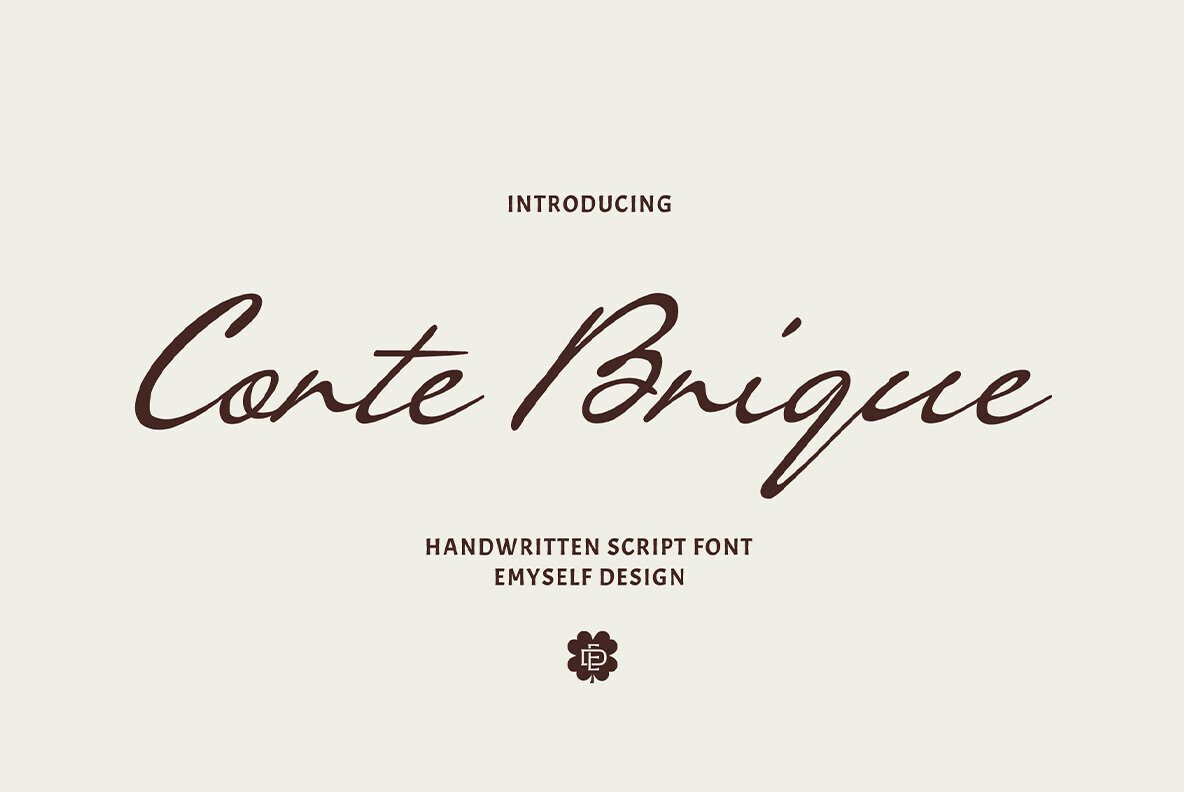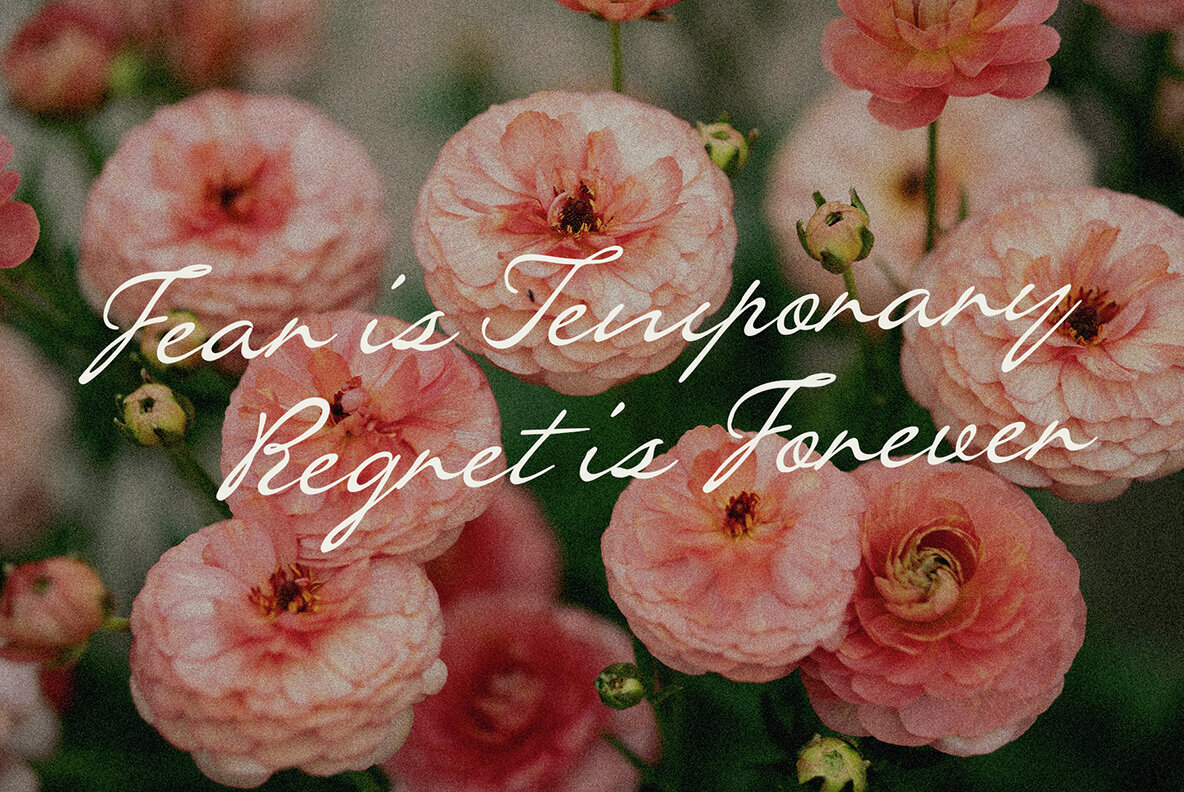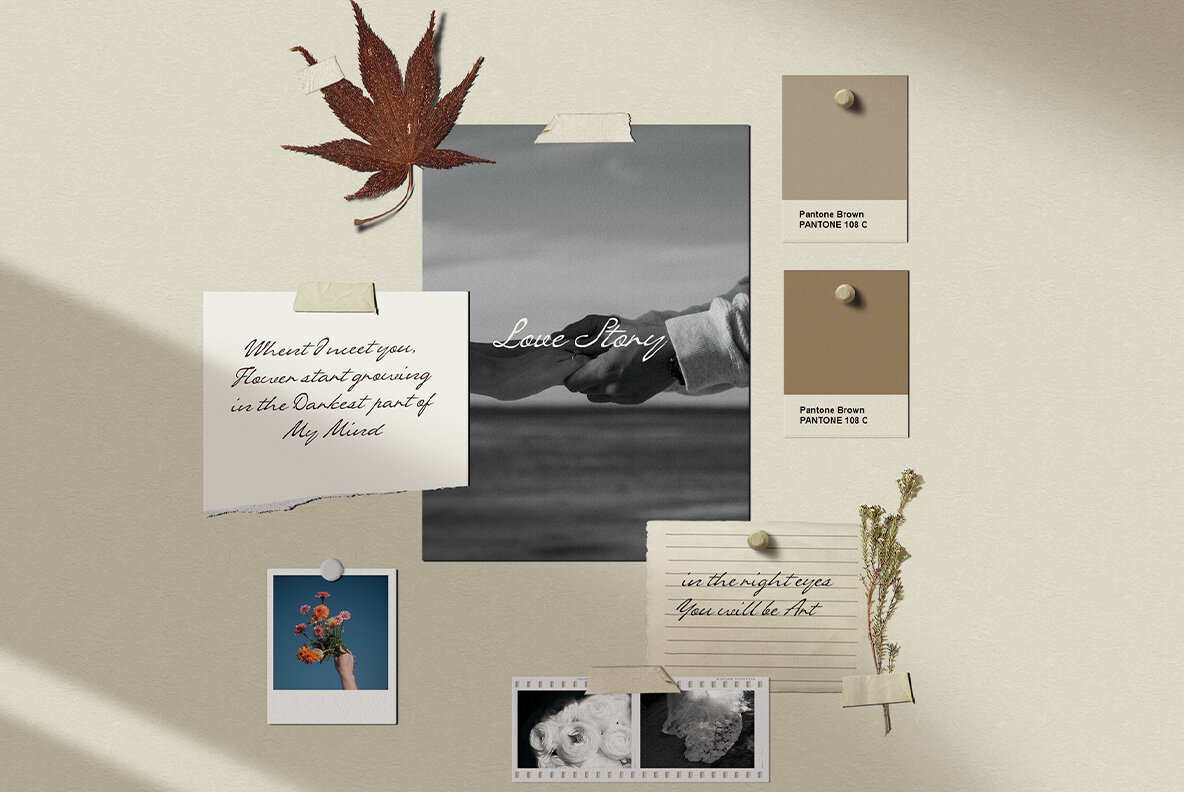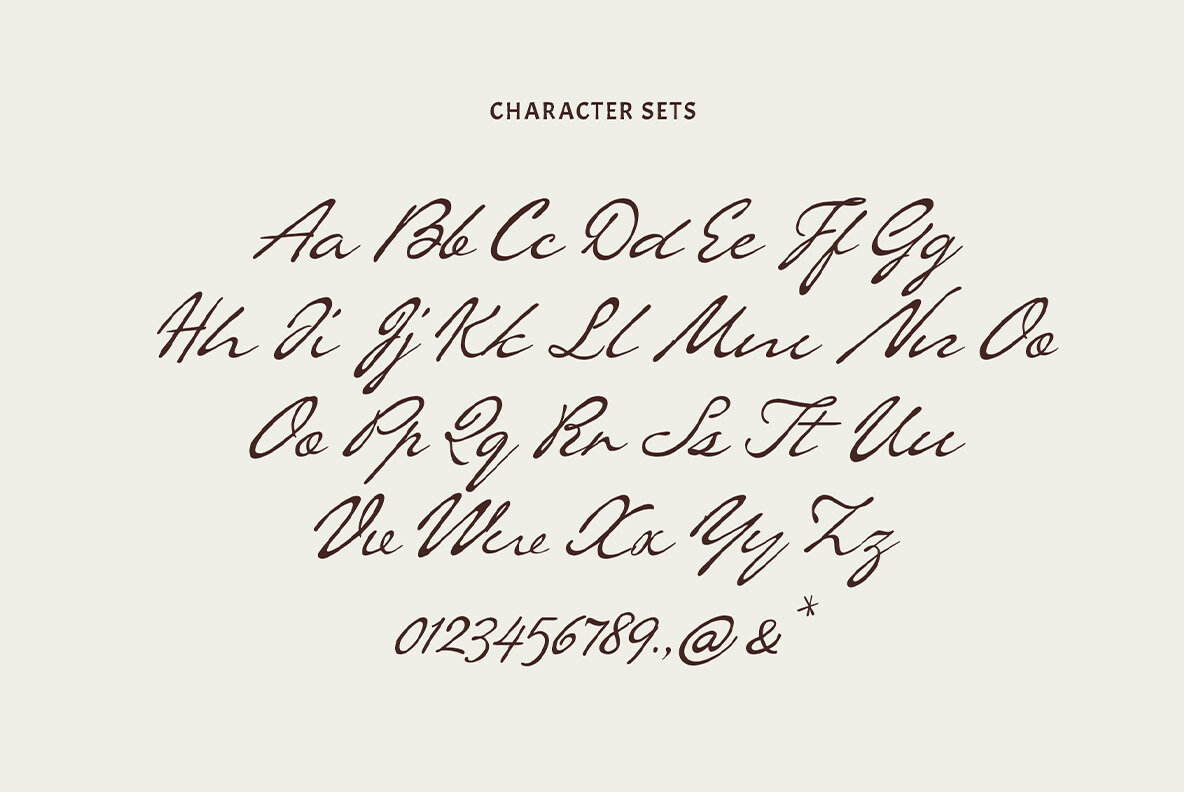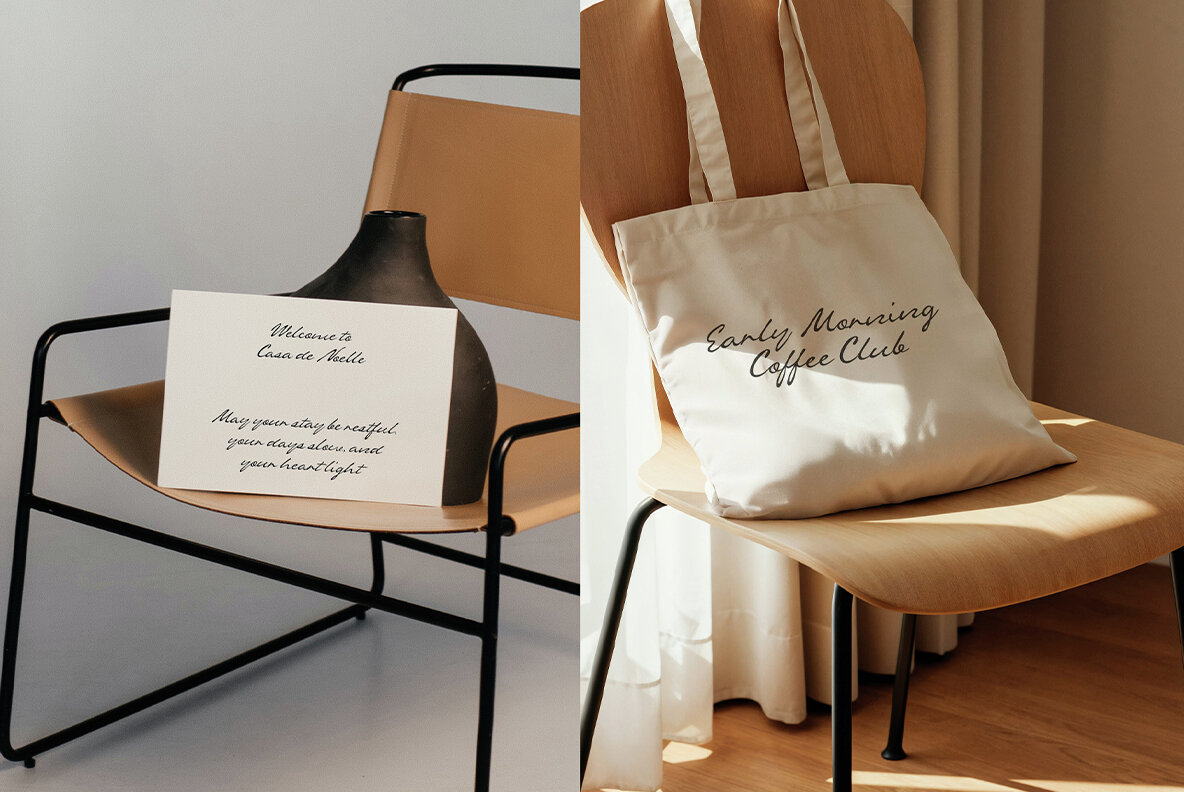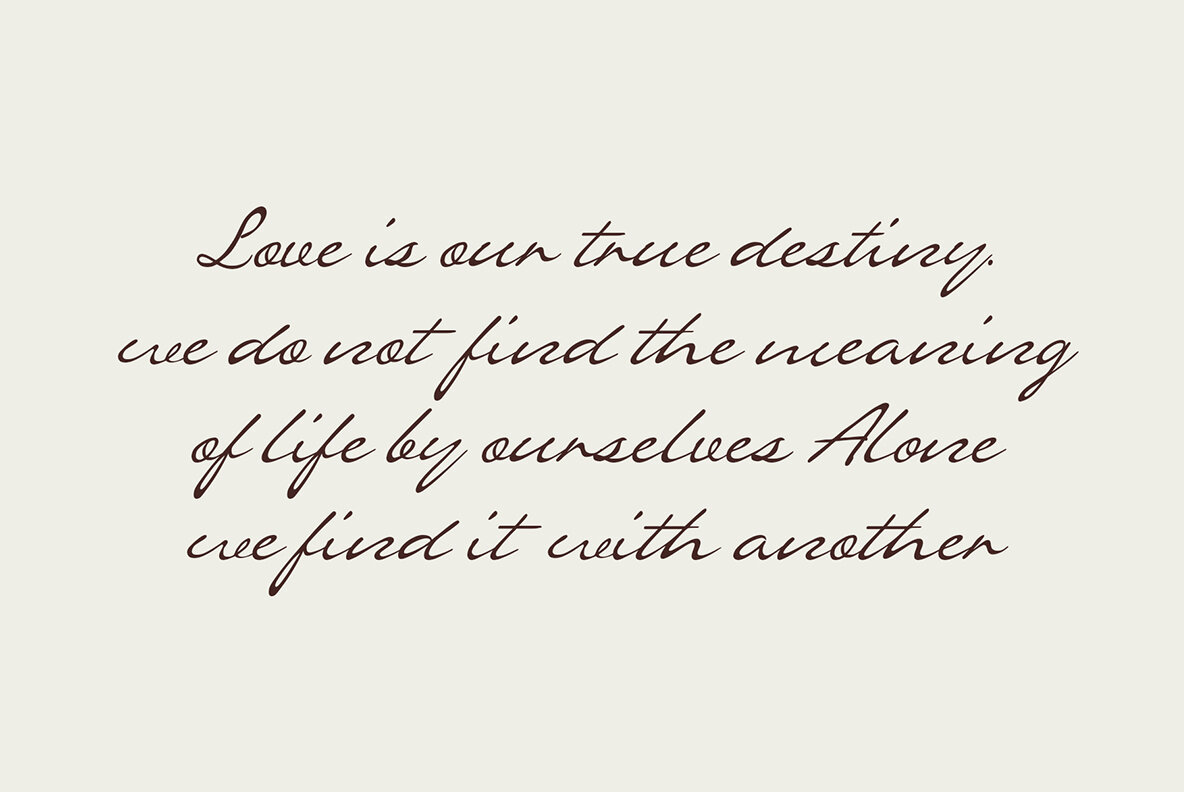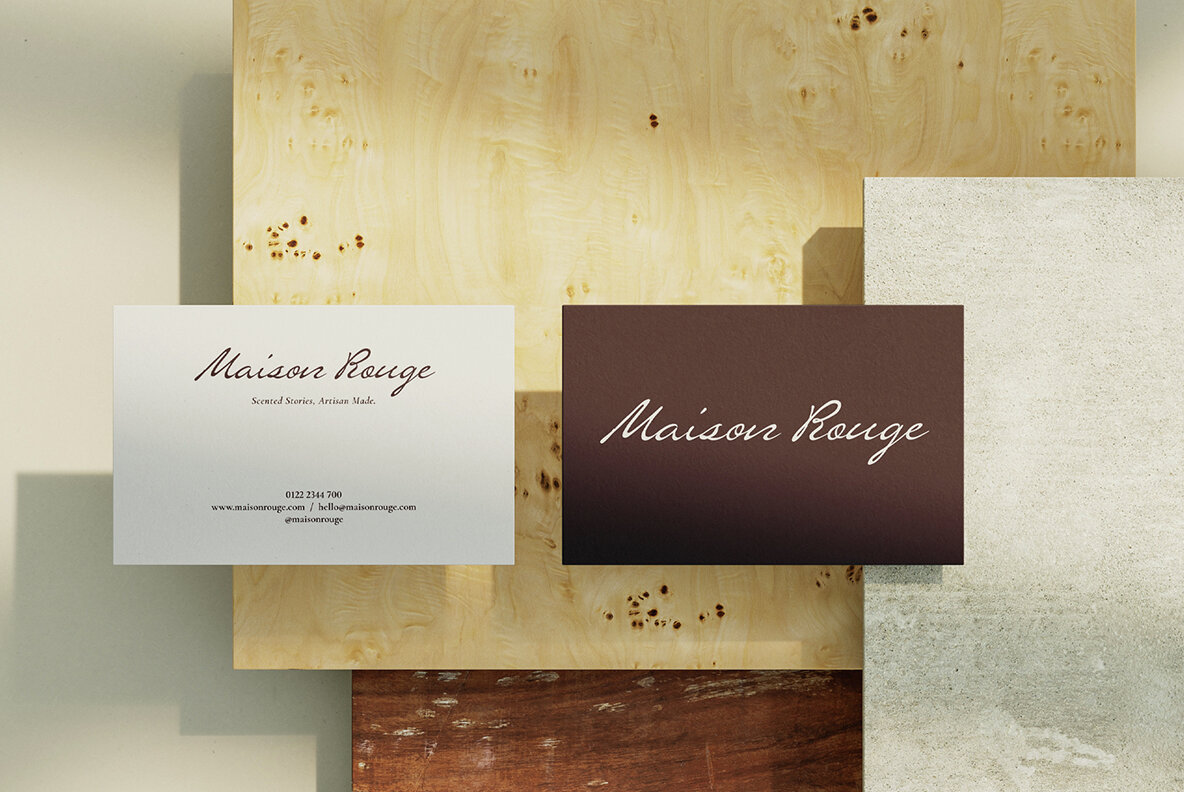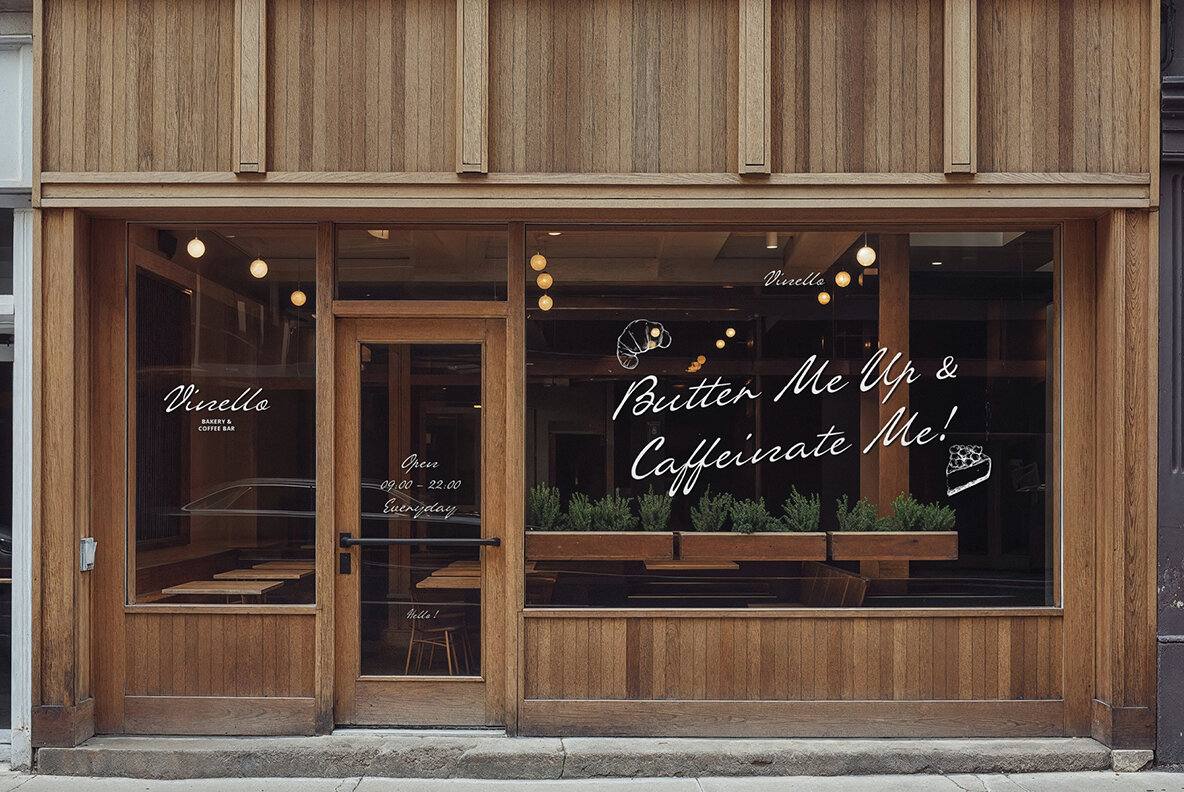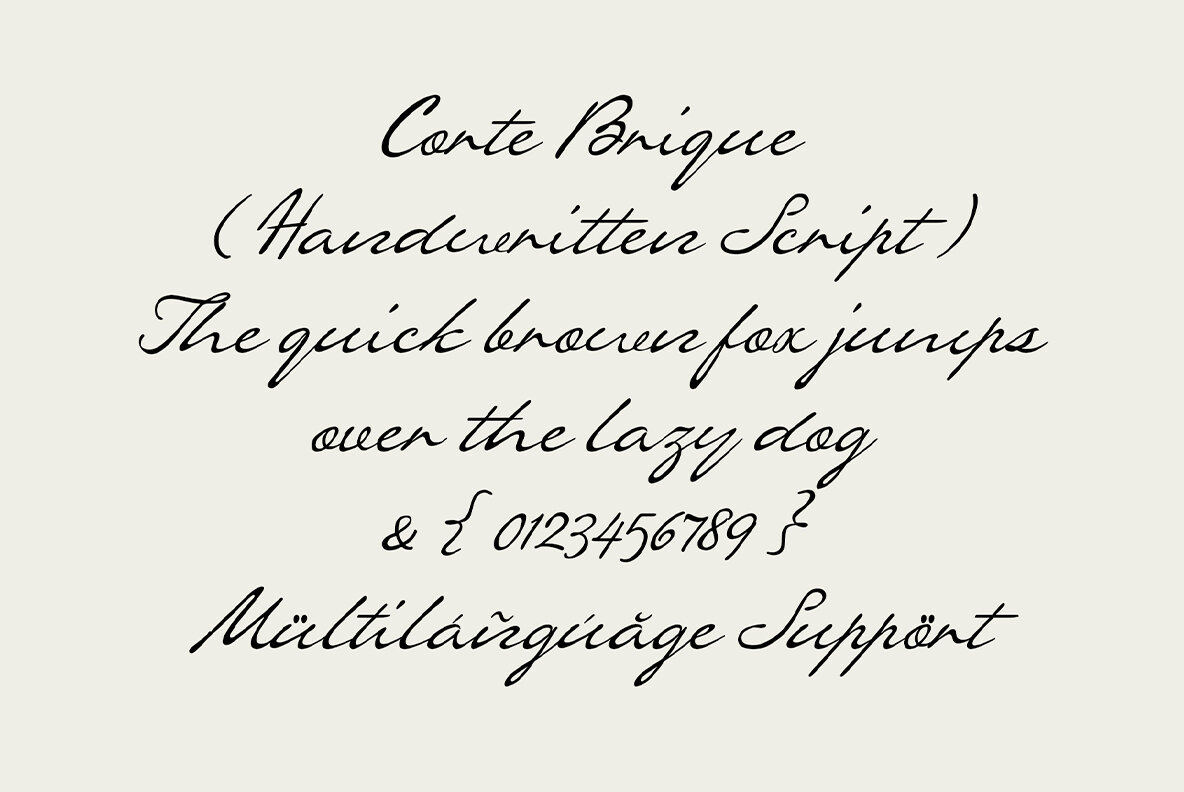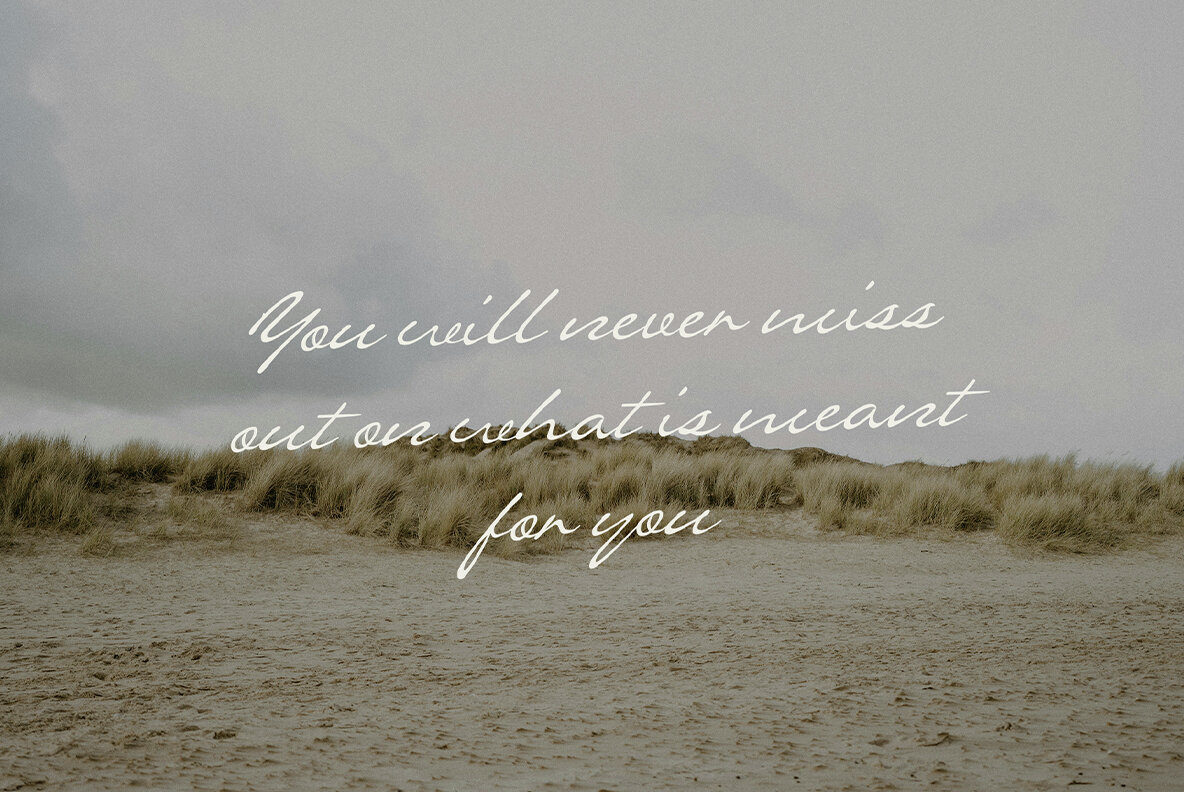
ED Corte Brique Font
ED Corte Brique Regular
Embodying the effortless beauty of natural handwriting, ED Corte Brique is a handwritten script font that delivers warmth and authenticity. Its fluid strokes and elegant curves make it the perfect choice for infusing a personal touch into your designs. Ideal for a range of applications including branding, editorial design, wedding invitations, signature-style logos, and more. This font delicately balances sophistication with casual charm, ensuring versatility for diverse creative projects.ED Corte Brique: Handwritten Elegance Reimagined